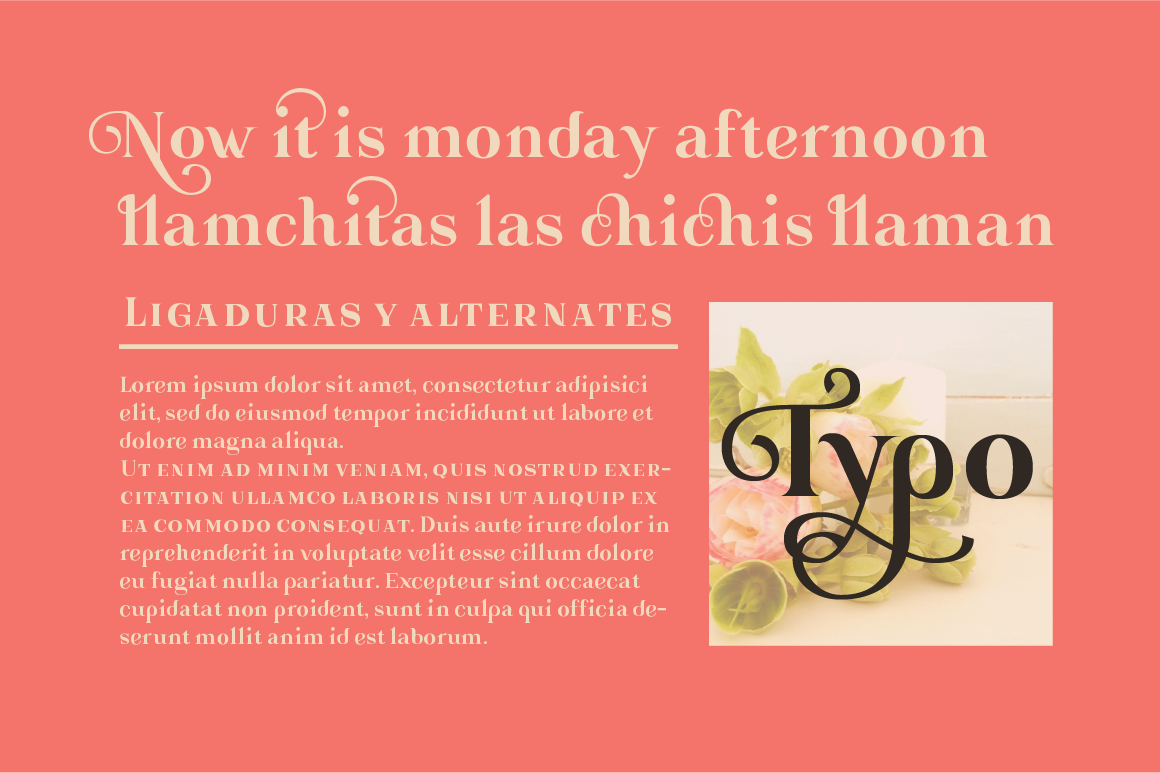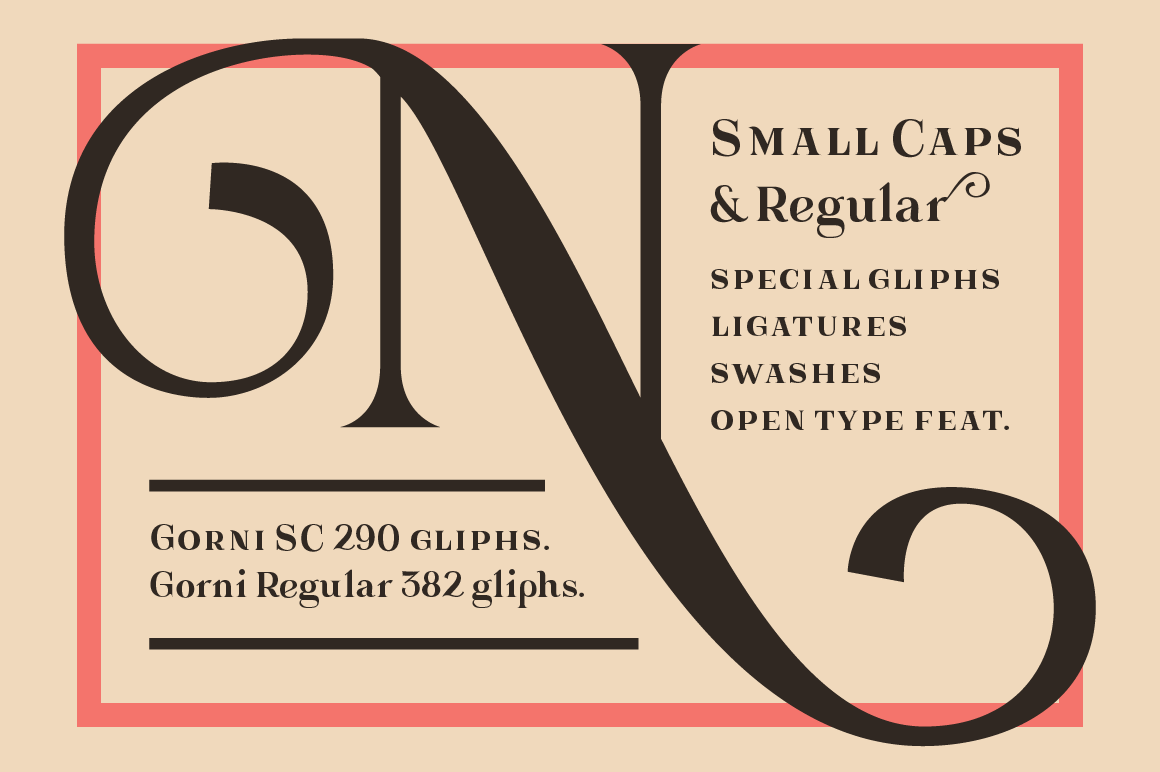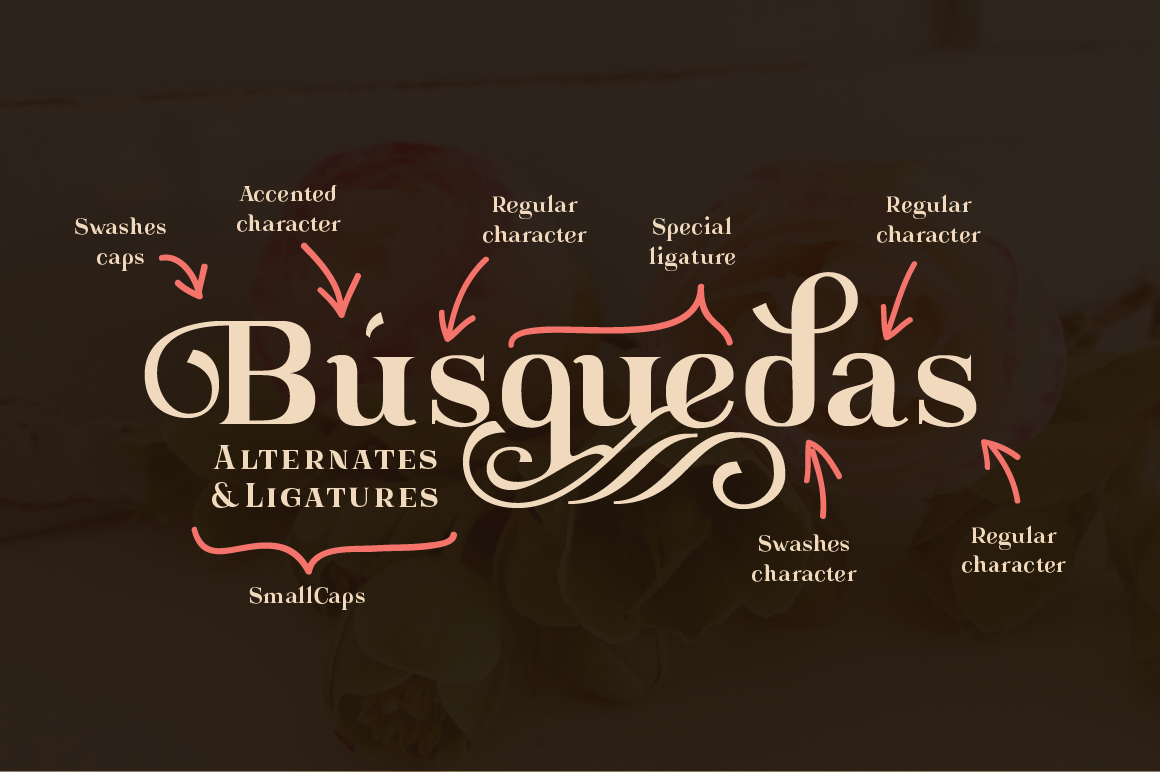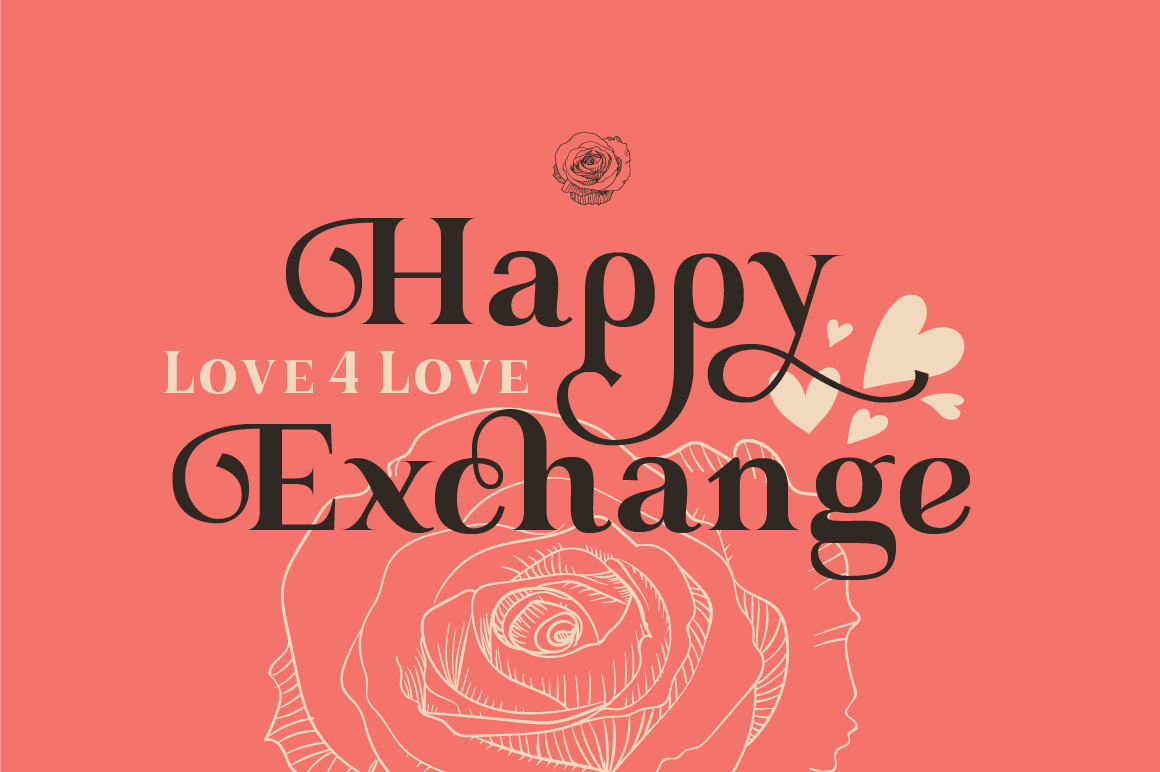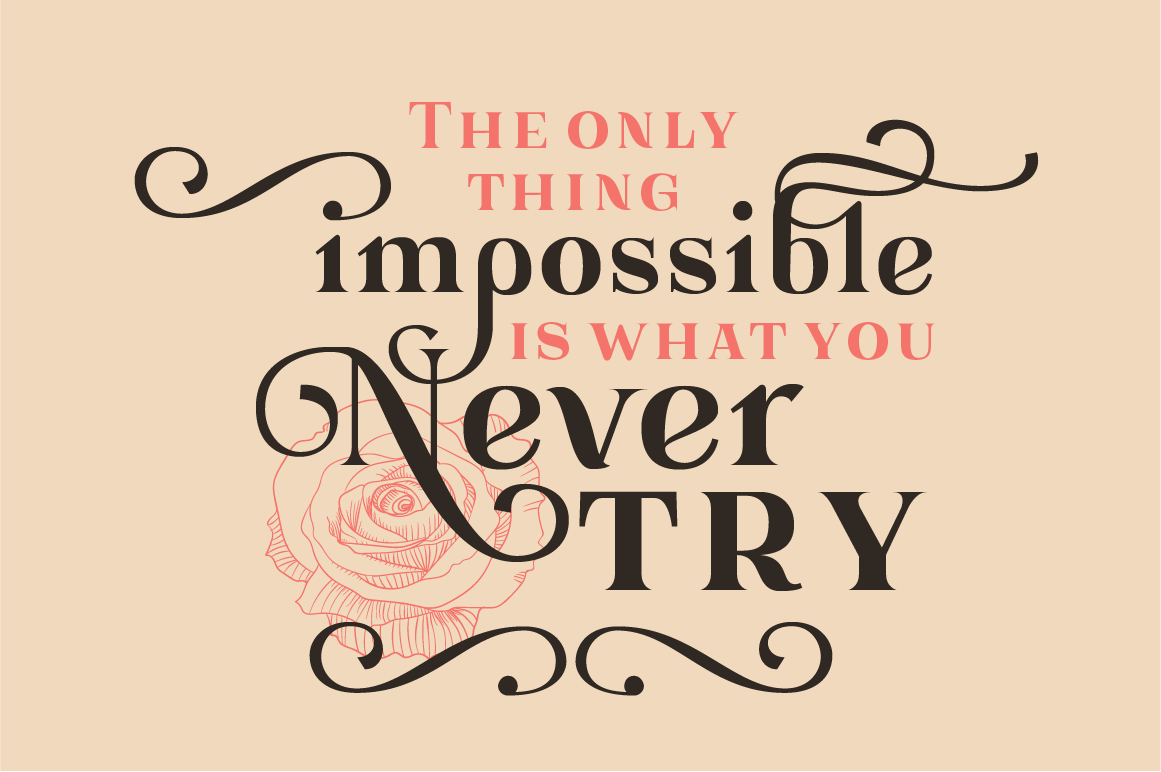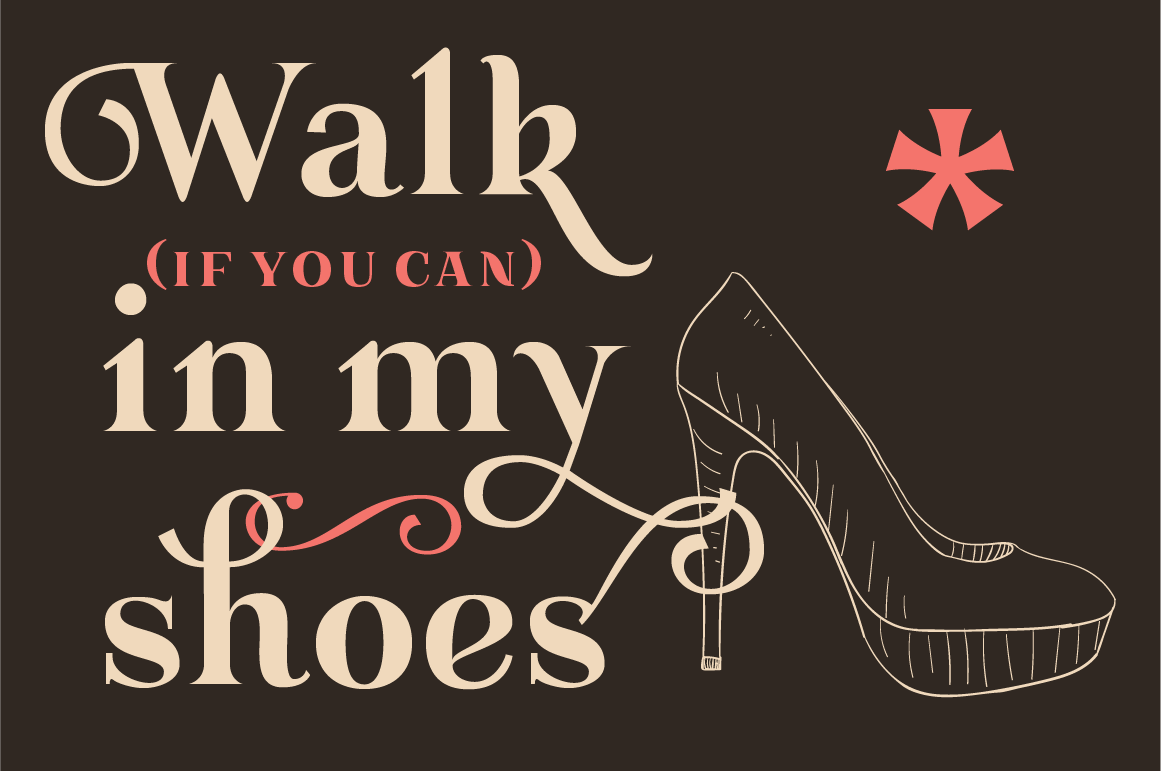
Gorni Font: Elevate Your Designs with a Touch of Romance
In the world of typography, fonts play a crucial role in conveying the tone and aesthetic of a design. For those seeking to infuse their creations with a romantic flair, the Gorni font is an exceptional choice. This stunning display serif font is meticulously crafted to evoke a sense of classic elegance, making it perfect for designers and crafters looking to make a lasting impression.
The Essence of Gorni Typeface
Gorni typeface is a display serif font that exudes a romantic vibe, reminiscent of traditional serif fonts with a modern twist. Its design is characterized by swashy alternates, which provide a unique opportunity to add a touch of sophistication and whimsy to any design project. Whether you’re working on a wedding invitation, a fashion brand, or a luxury product label, Gorni font is sure to elevate your design to new heights.
Key Features of Gorni Font
- Display Serif Font: Gorni font is specifically designed for display purposes, making it ideal for headlines, titles, and short paragraphs.
- Romantic Vibe: The font’s classic serif design and swashy alternates evoke a sense of romance and elegance, perfect for designs that require a touch of sophistication.
- Swashy Alternates: The inclusion of swashy alternates allows designers to create high-impact, romantic designs with ease, adding a unique flair to their work.
- Versatility: Gorni font is suitable for a wide range of display uses, including but not limited to, wedding invitations, fashion branding, luxury product labels, and more.
Why Choose Gorni Font?
For designers and crafters seeking to create visually stunning and emotionally resonant designs, Gorni font is an excellent choice. Its unique blend of classic elegance and modern flair makes it an versatile tool for a variety of design applications. Here are a few reasons why Gorni font stands out:
- Emotional Connection: The romantic vibe of Gorni font helps create an emotional connection with the audience, making it perfect for designs that aim to evoke feelings of love, luxury, or nostalgia.
- Customization: With swashy alternates, designers have the flexibility to customize their designs, creating unique and eye-catching visuals that set their work apart.
- Timeless Appeal: The classic serif design of Gorni font ensures that it remains timeless, avoiding the trend-based pitfalls that can make a design look dated.
Using Gorni Font in Your Designs
Incorporating Gorni font into your design workflow is straightforward. Here are a few tips to get you started:
- Pair with Complementary Fonts: Combine Gorni font with simpler fonts for body text to create visual hierarchy and balance in your designs.
- Experiment with Swashy Alternates: Don’t be afraid to try out different swashy alternates to find the perfect fit for your design.
- Consider the Color Scheme: Choose a color scheme that complements the romantic and elegant feel of Gorni font, such as soft pastels, rich jewel tones, or classic black and white.
Gorni font is a beautiful display serif font that brings a touch of romance and elegance to any design project. With its swashy alternates and classic serif design, it’s the perfect choice for designers and crafters looking to create high-impact, romantic designs. Whether you’re working on a wedding invitation, a fashion brand, or a luxury product label, Gorni font is sure to elevate your design to new heights.